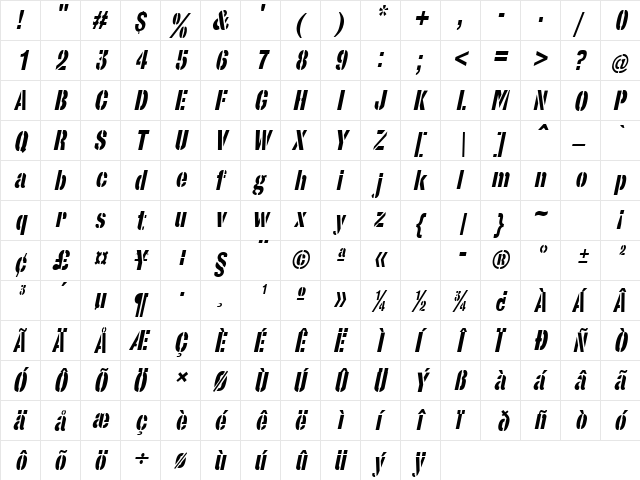
StencilSet Oblique
Design Context for StencilSet Typeface
StencilSet has the rough pragmatism of spray-painted stencil signage, adding a raw, street-level authenticity to designs. The dynamic lean of this cut emphasises speed and emphasis in any layout.
Ideal for industrial branding, streetwear, military-adjacent aesthetics, and urban signage projects.
Pro Tip: Pair StencilSet with raw, utilitarian design elements — exposed concrete textures, flat colour, and minimal ornamentation suit it well.